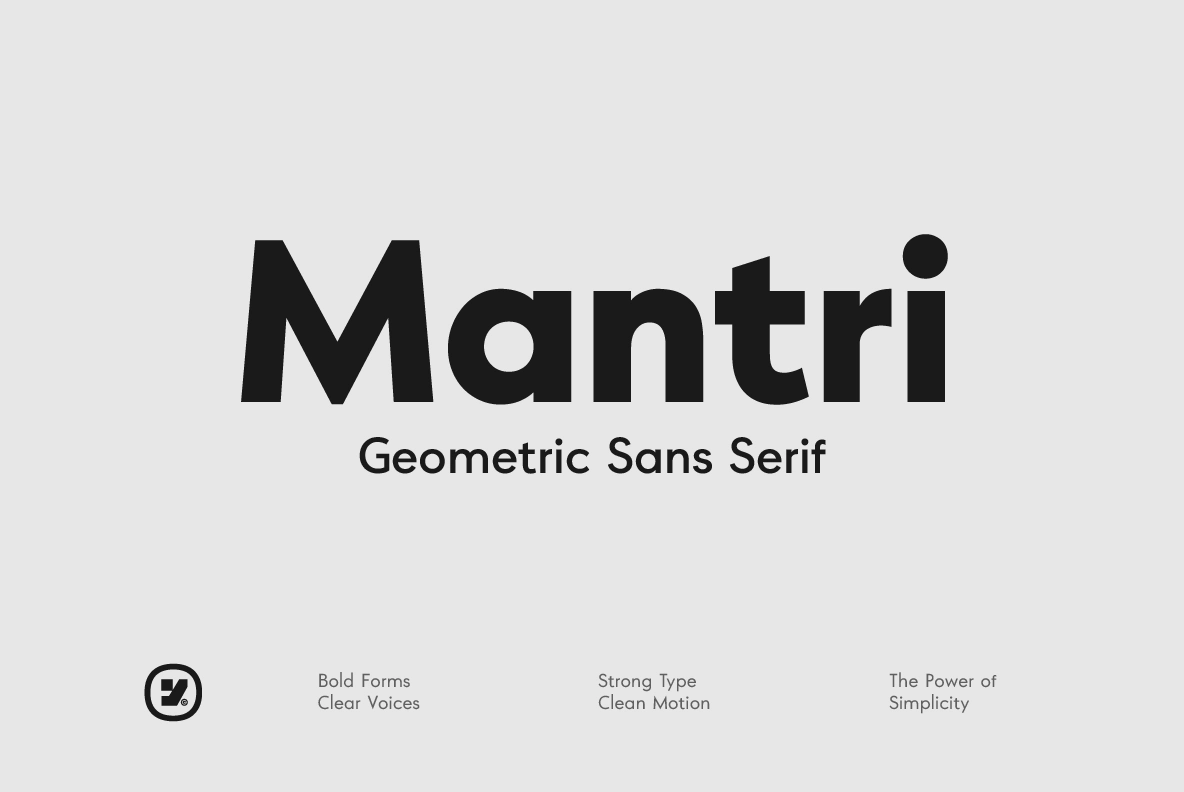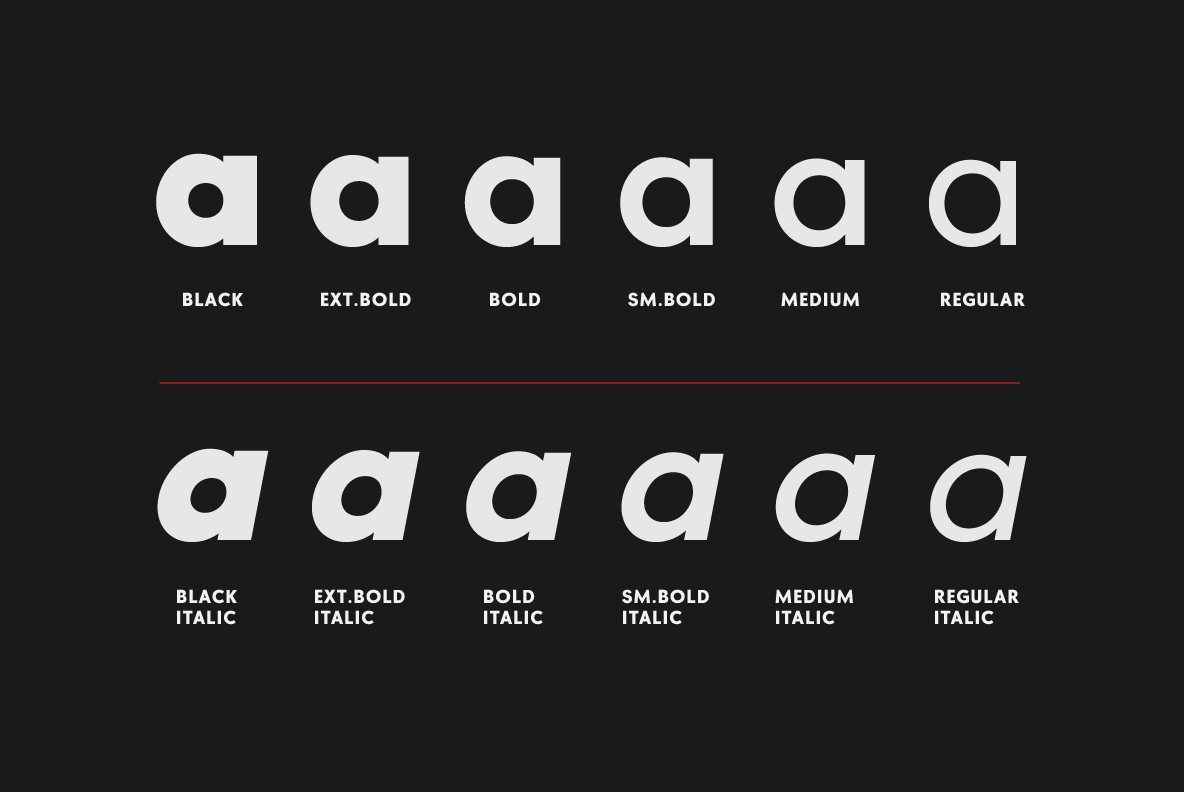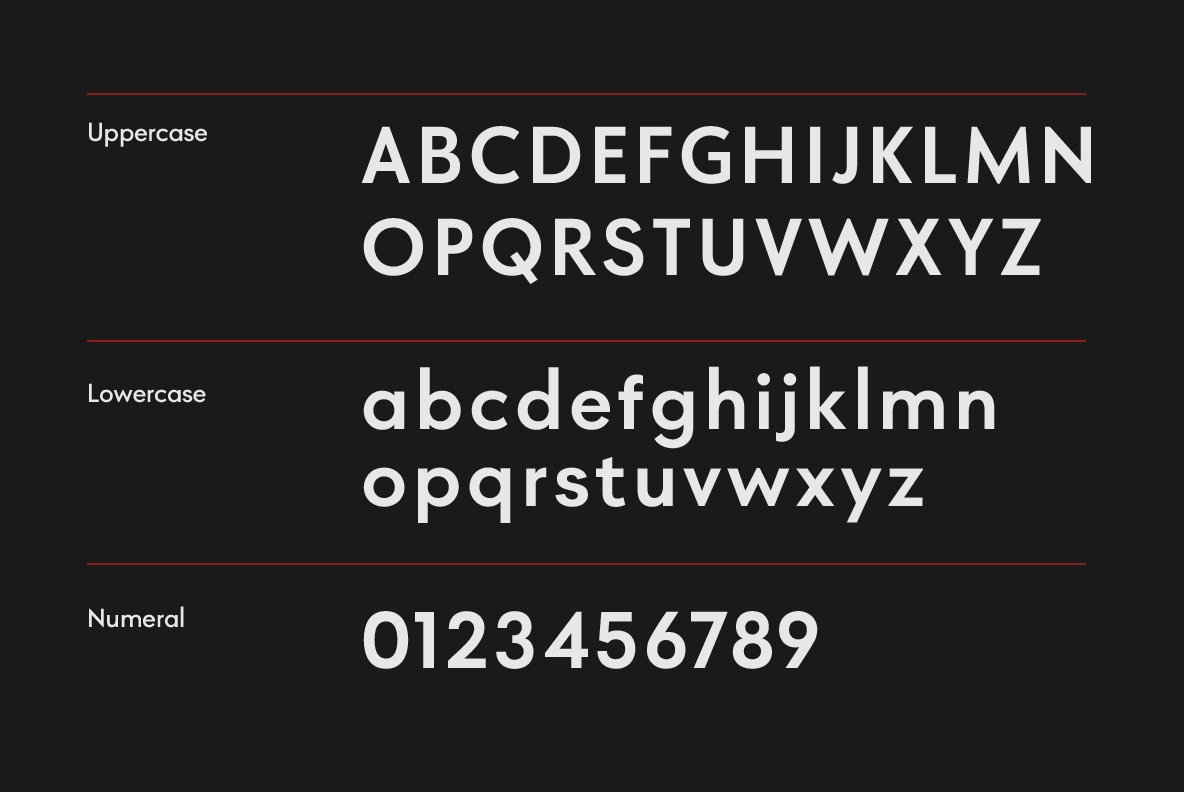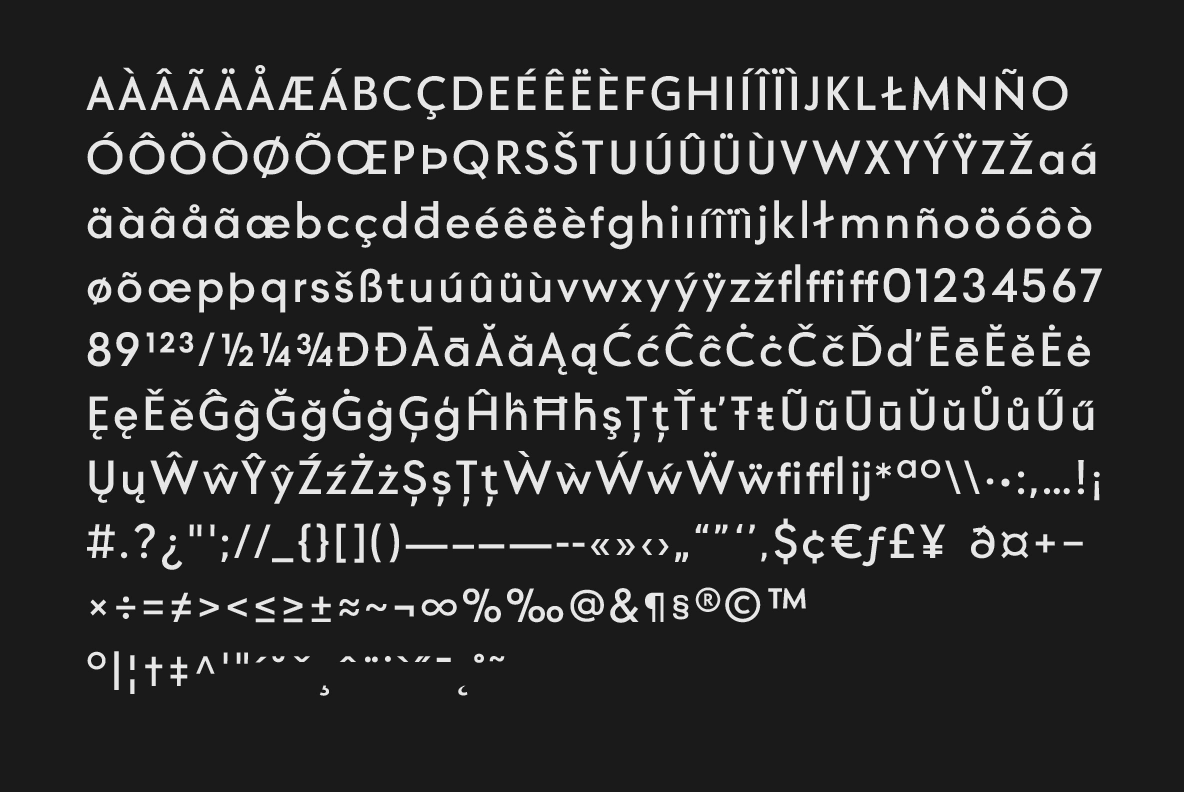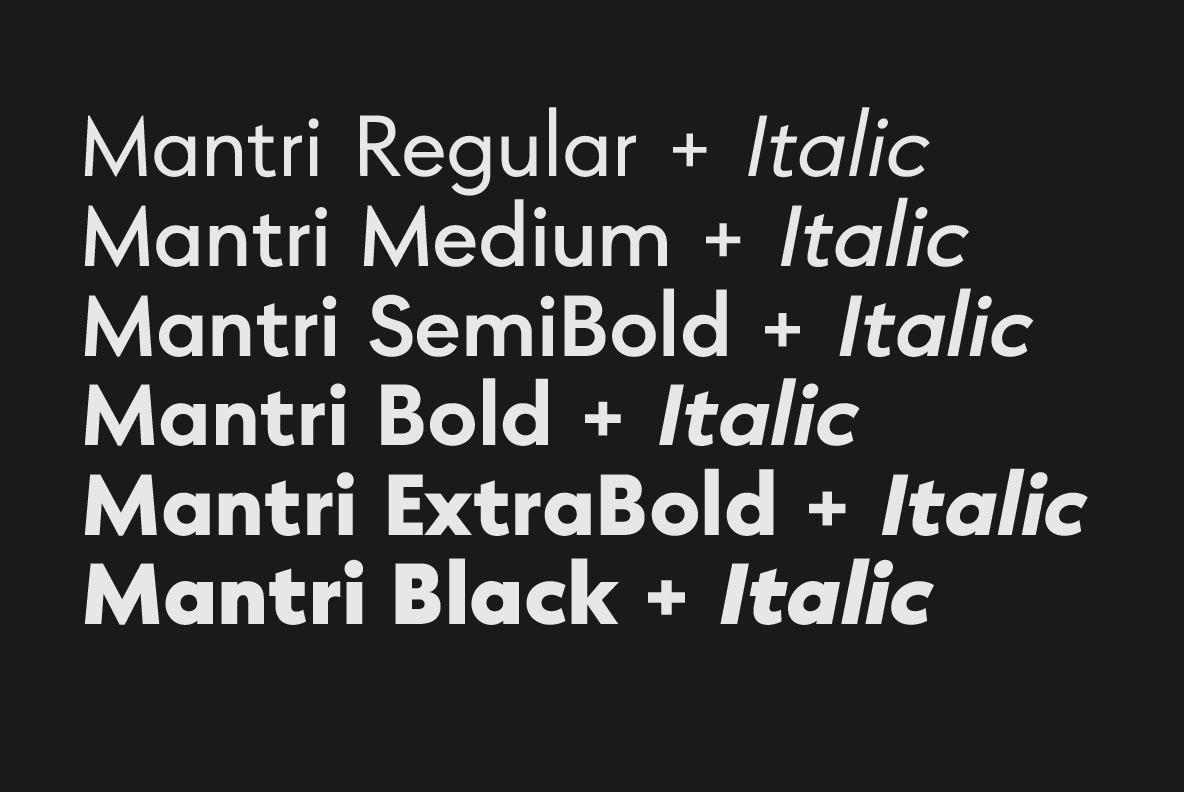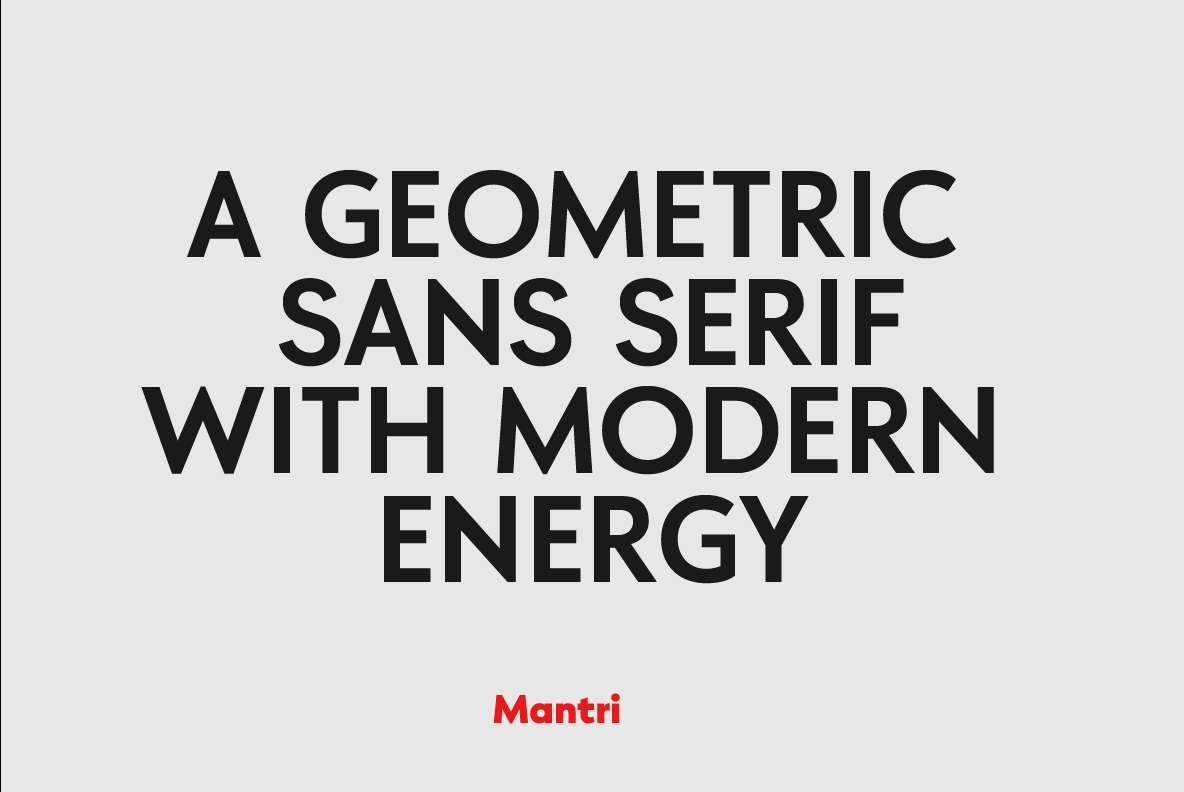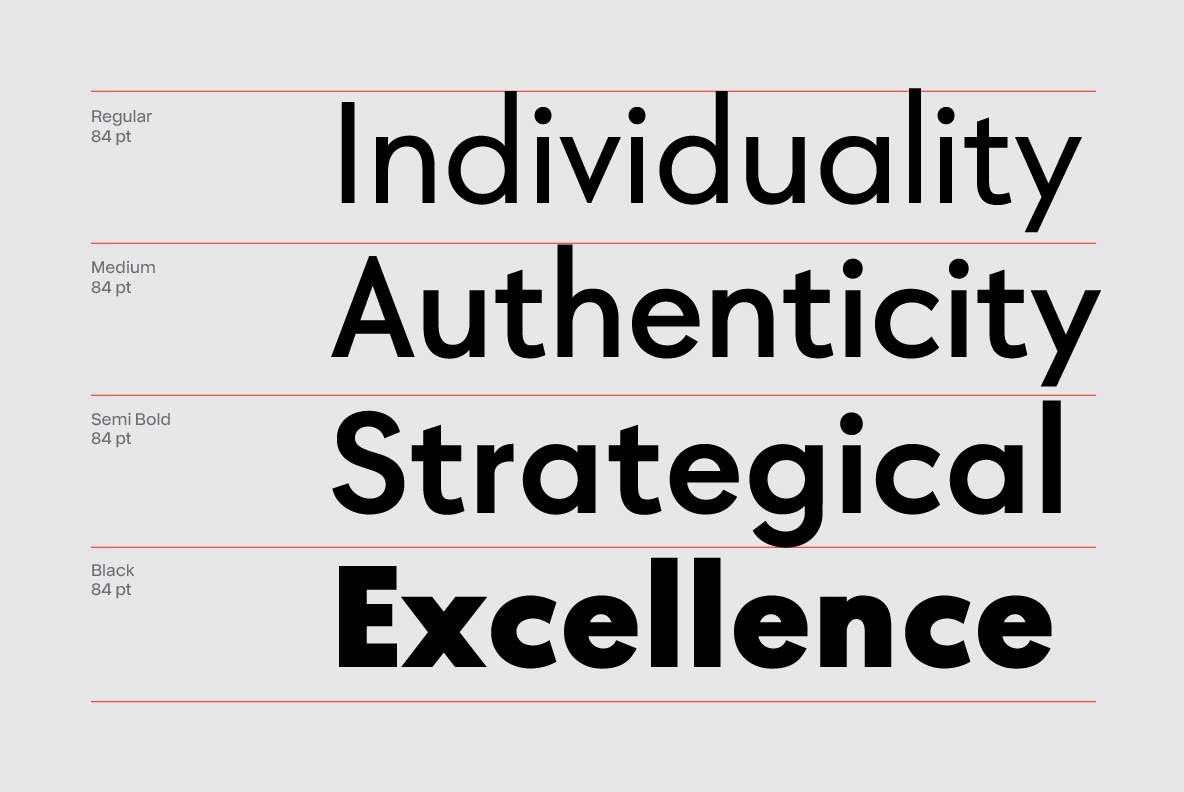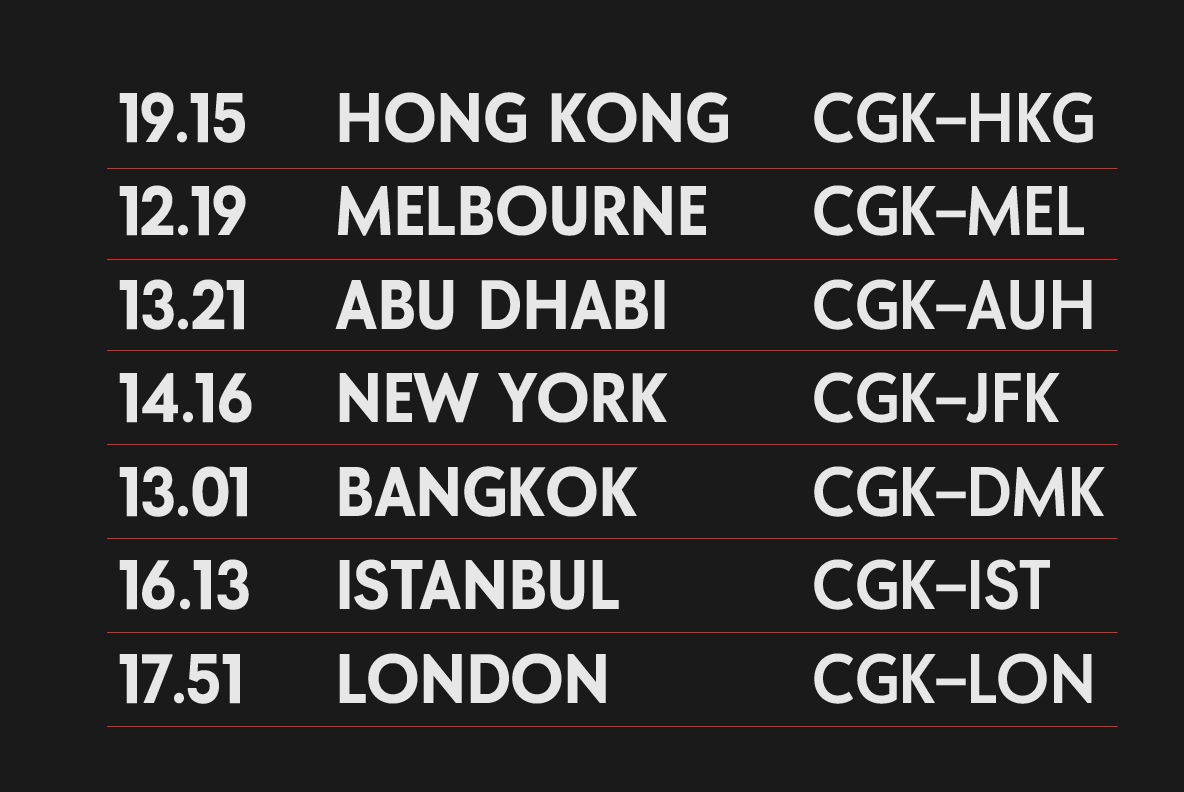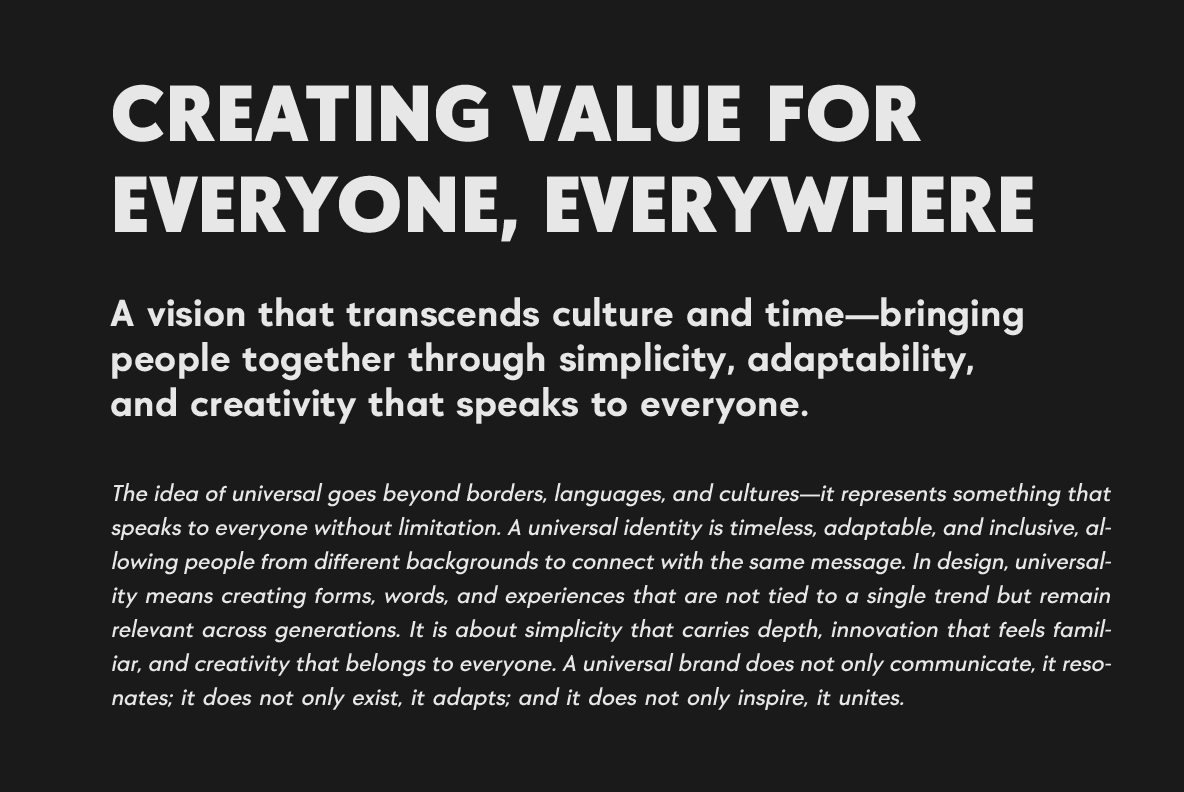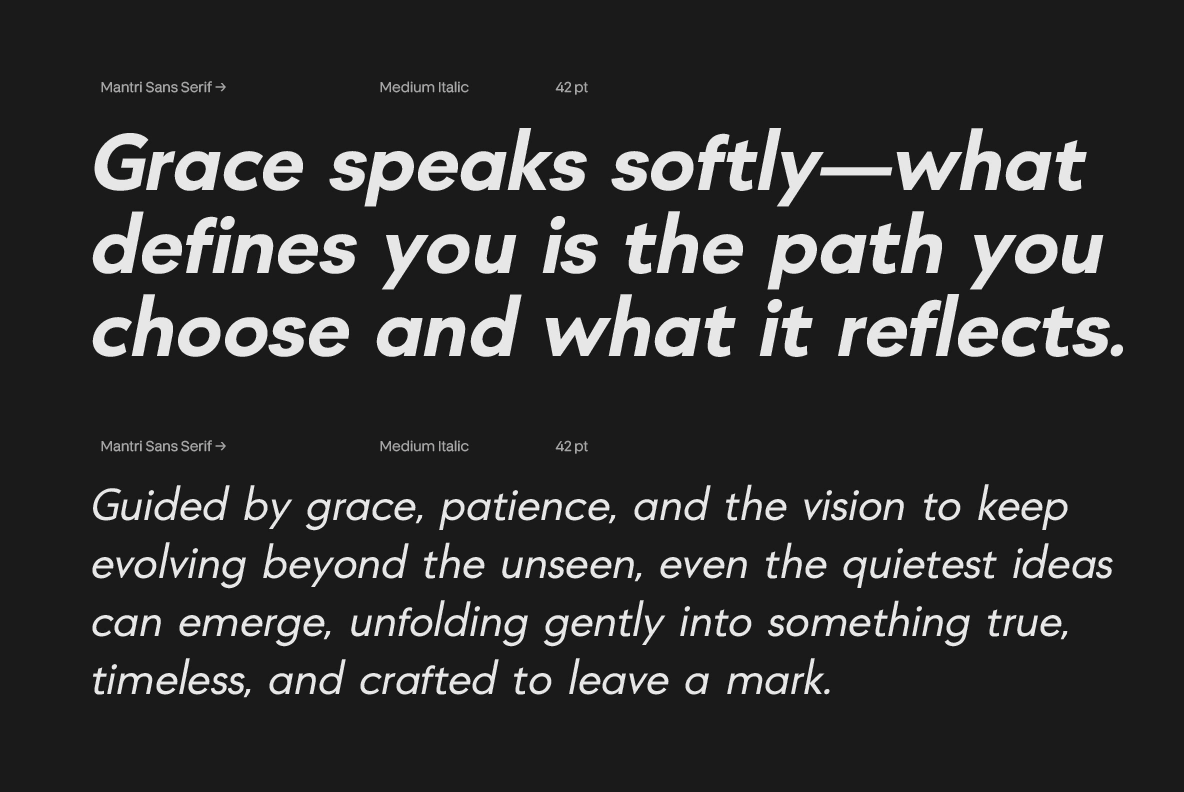
Mantri – Geometric Sans Font Family
A geometric sans serif family with rounded counters, firm proportions, and a direct typographic voice for clear communication. Its sans serif structure is crisp and practical, with heavy weights for bold headlines and lighter cuts for interface text, brand systems, and editorial layouts.
Mantri works well for logos, product branding, app interfaces, website headers, presentation decks, magazine layouts, packaging, signage, social media graphics, startup identities, data-heavy visuals, advertising headlines, and digital campaigns that need order without looking sterile.
• 12 styles: Regular - Black + Italics